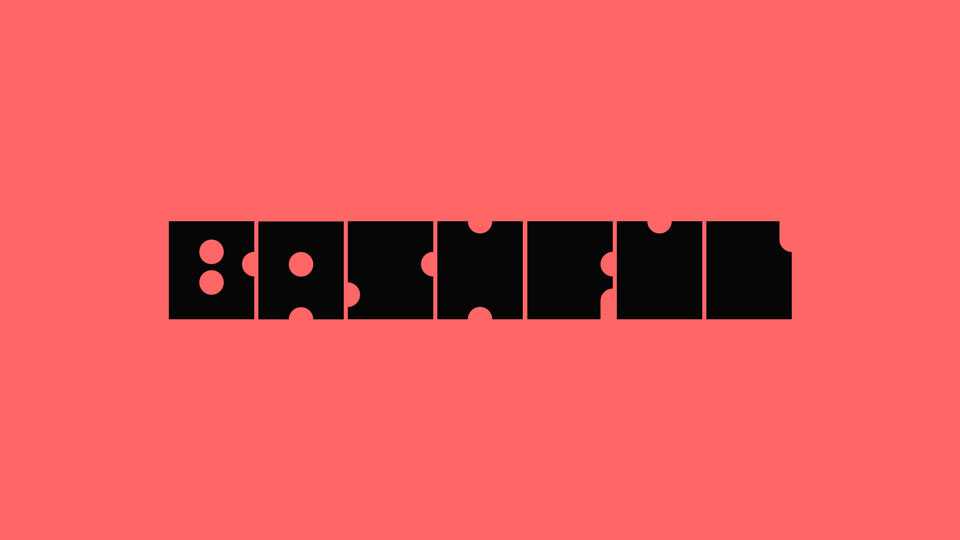
Download TMT Bashful font, a heavy rectangular blocky display typeface that commands attention with its bold and robust design.
Designer: Too Much Type